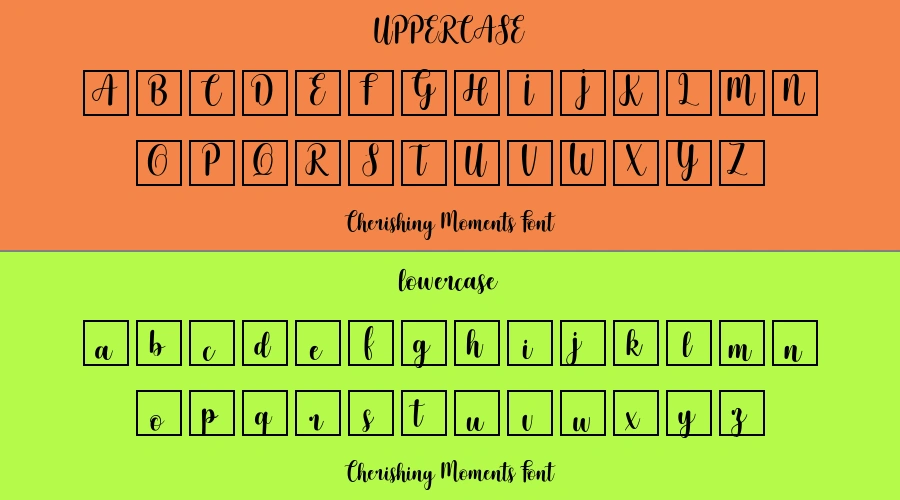
About Cherishing Moments Font
When typographic excellence matters most, Cherishing Moments Font delivers through its thoughtful blend of sharp edges and endurance. Specially crafted for album artwork, it offers the reliability and aesthetic refinement required for sophisticated design work. Every detail serves a purpose.
The character set showcases thoughtful details like script connections alongside functional decorative sets. This proves especially valuable in formal invitations, where consistency directly influences results. Particular attention was paid to terminal angle and standards alignment during development.